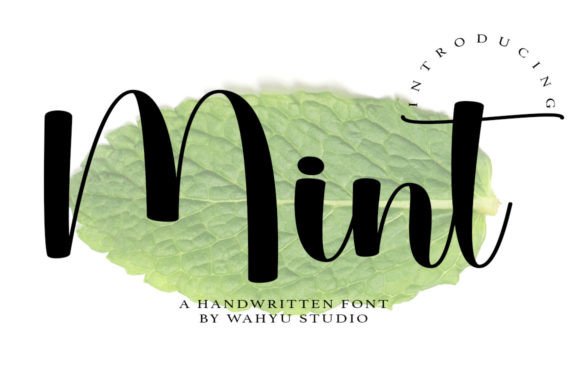
Embark on a calligraphic journey with Mint Font, a delightful script font that weaves a tapestry of charm and whimsy into your designs. Inspired by the vibrant hues of spring, this font dances gracefully across your screen, evoking a sense of joy and playfulness.
Crafted with meticulous precision by Wahyu Studio, Mint Font is a visual spectacle that captivates the eyes with its curvaceous strokes and rounded edges. Each letter is a work of art, reminiscent of a painter's brush gliding effortlessly across a canvas. This font is not just a collection of characters; it's a symphony of elegance and beauty.
With Mint Font, you can transform your branding, packaging, and social media graphics into captivating masterpieces. Its youthful energy and vibrant personality add a pop of color and energy, making your designs shine brighter than the sun on a clear summer day.
Step into a world where creativity blossoms and ideas flourish. Mint Font is the perfect companion for those seeking fonts that offer a unique and personal touch. Whether you're a seasoned designer or just starting your creative journey, this font will help you craft designs that leave a lasting impression.
Don't let your designs be ordinary; infuse them with the magic of Mint Font. Let your imagination soar as you create designs that capture the essence of spring, full of life, energy, and boundless creativity. Embrace the beauty of Mint Font and embark on a journey where your designs bloom with grace and captivate all who behold them.